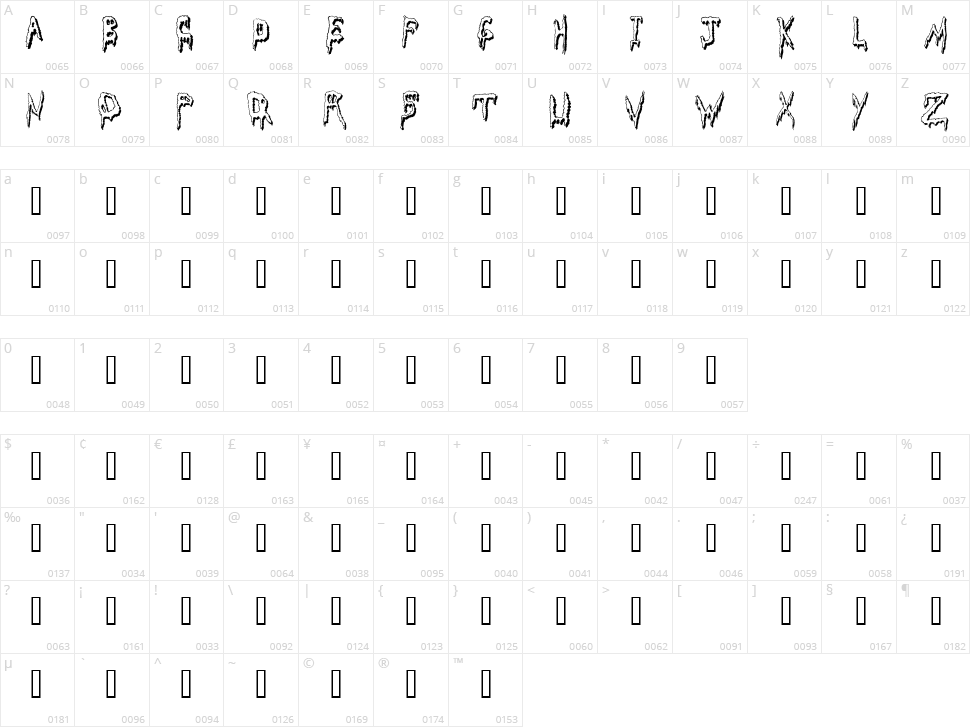
Grossout
Designed while The Claw recovered from the Flesh Eating Virus, Grossout is an all-caps-and-nuthin-else TrueType font that costs nothing. Since Your Emperor suffered gruesomely from a virus while creating this, he orders you to treat this font like a disease - give it to somebody whether they want it or not. Put it on a disk, approach your victim, cough in their face, then hand them the disk, saying "Here's a grossout from The Claw."